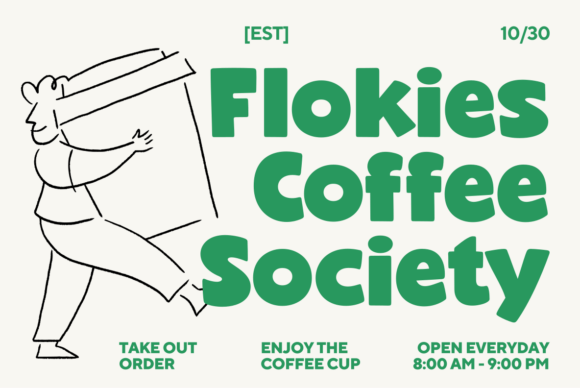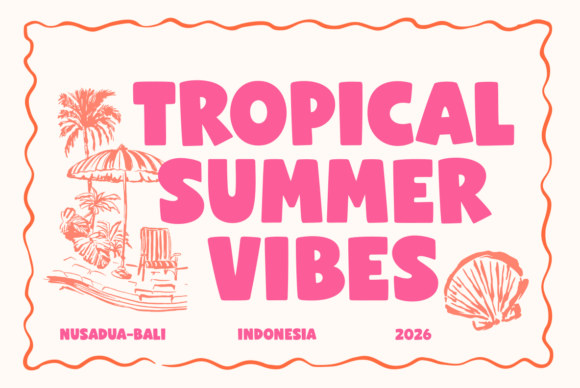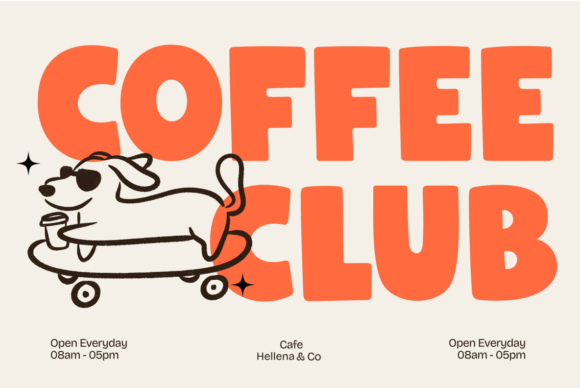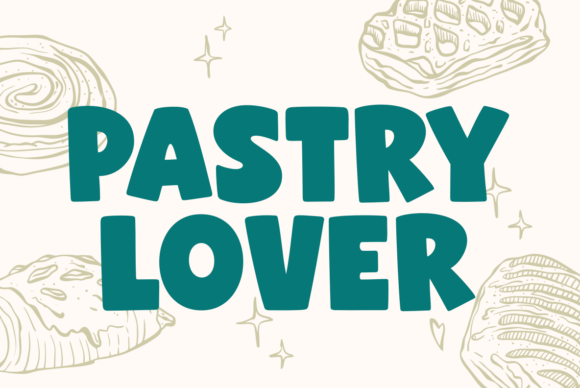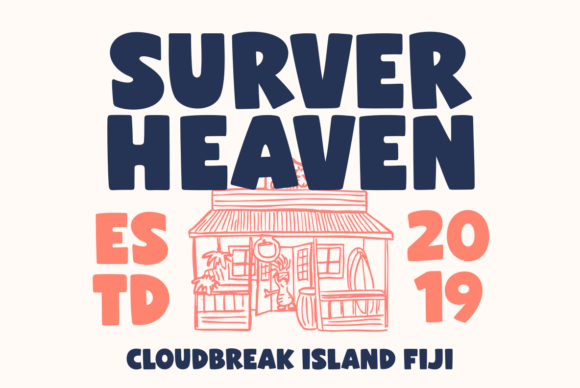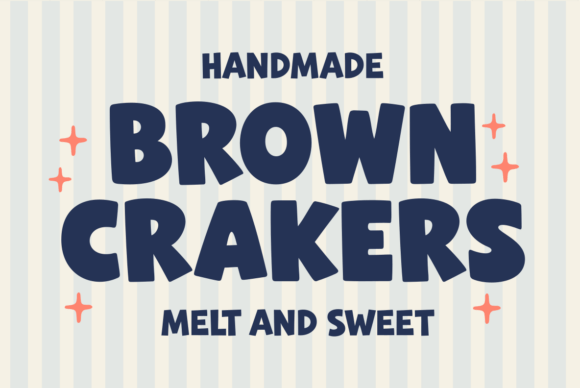
Introducing Chunky Bolde: The Ultimate Display Font for Bold Designs
Are you looking for a font that packs a punch and exudes confidence? Look no further than Chunky Bolde, a bold and chunky display font that’s perfect for making a statement. With its thick curves and solid letterforms, Chunky Bolde creates a strong visual impact while maintaining a soft, friendly feel. In this article, we’ll dive into the world of Chunky Bolde and explore its features, uses, and benefits for designers and crafters.
The Characteristics of Chunky Bolde
Chunky Bolde is a heavy-hitting, fun-loving display typeface that’s designed to grab attention. Its thick, rounded corners and slightly irregular baseline give it a unique and playful feel that’s perfect for high-energy designs. The font’s bold and chunky appearance makes it ideal for headlines, branding, packaging, posters, and playful merchandise.
What Makes Chunky Bolde So Special?
So, what sets Chunky Bolde apart from other fonts? Here are a few key features that make it a standout:
- Thick curves and solid letterforms: Chunky Bolde’s bold and chunky appearance creates a strong visual impact that’s hard to ignore.
- Soft and friendly feel: Despite its bold appearance, Chunky Bolde has a soft and friendly feel that’s perfect for designs that need a touch of warmth and approachability.
- Fun and playful vibe: Chunky Bolde is the perfect font for designs that need a dose of fun and playfulness, making it ideal for children’s products, cafe branding, and vibrant social media graphics.
Using Chunky Bolde in Your Designs
Chunky Bolde is a versatile font that can be used in a variety of design projects, including:
- Children’s products: Chunky Bolde is perfect for kids’ products, such as toys, games, and educational materials, due to its fun and playful vibe.
- Cafe branding: The font’s bold and chunky appearance makes it ideal for cafe branding, including menus, signage, and packaging.
- Vibrant social media graphics: Chunky Bolde is perfect for creating eye-catching social media graphics that need to stand out in a crowded feed.
- Headlines and titles: The font’s bold and chunky appearance makes it perfect for headlines and titles that need to grab attention.
Pairing Chunky Bolde with Other Design Elements
To get the most out of Chunky Bolde, try pairing it with other design elements that complement its fun and playful vibe. Here are a few suggestions:
- Bright and bold colors: Pair Chunky Bolde with bright, candy-coated colors to create a look that’s both approachable and unforgettable.
- Playful illustrations: Chunky Bolde pairs perfectly with playful illustrations and graphics, making it ideal for designs that need a touch of whimsy and fun.
Why Designers and Crafters Love Chunky Bolde
Designers and crafters love Chunky Bolde for its unique combination of boldness and friendliness. Here are a few reasons why:
- Instant attention-grabber: Chunky Bolde is designed to grab attention and make a statement, making it perfect for designs that need to stand out.
- Fun and playful vibe: The font’s fun and playful vibe makes it perfect for designs that need a dose of personality and whimsy.
- Easy to read: Despite its bold and chunky appearance, Chunky Bolde is easy to read, making it perfect for designs that need to communicate a message clearly.
| Author | zeenesia |
In conclusion, Chunky Bolde is a bold and chunky display font that’s perfect for designers and crafters who need to make a statement. With its thick curves and solid letterforms, soft and friendly feel, and fun and playful vibe, Chunky Bolde is the ultimate font for high-energy designs. Whether you’re working on a children’s product, cafe branding, or vibrant social media graphics, Chunky Bolde is the perfect choice for adding a touch of personality and whimsy to your designs.